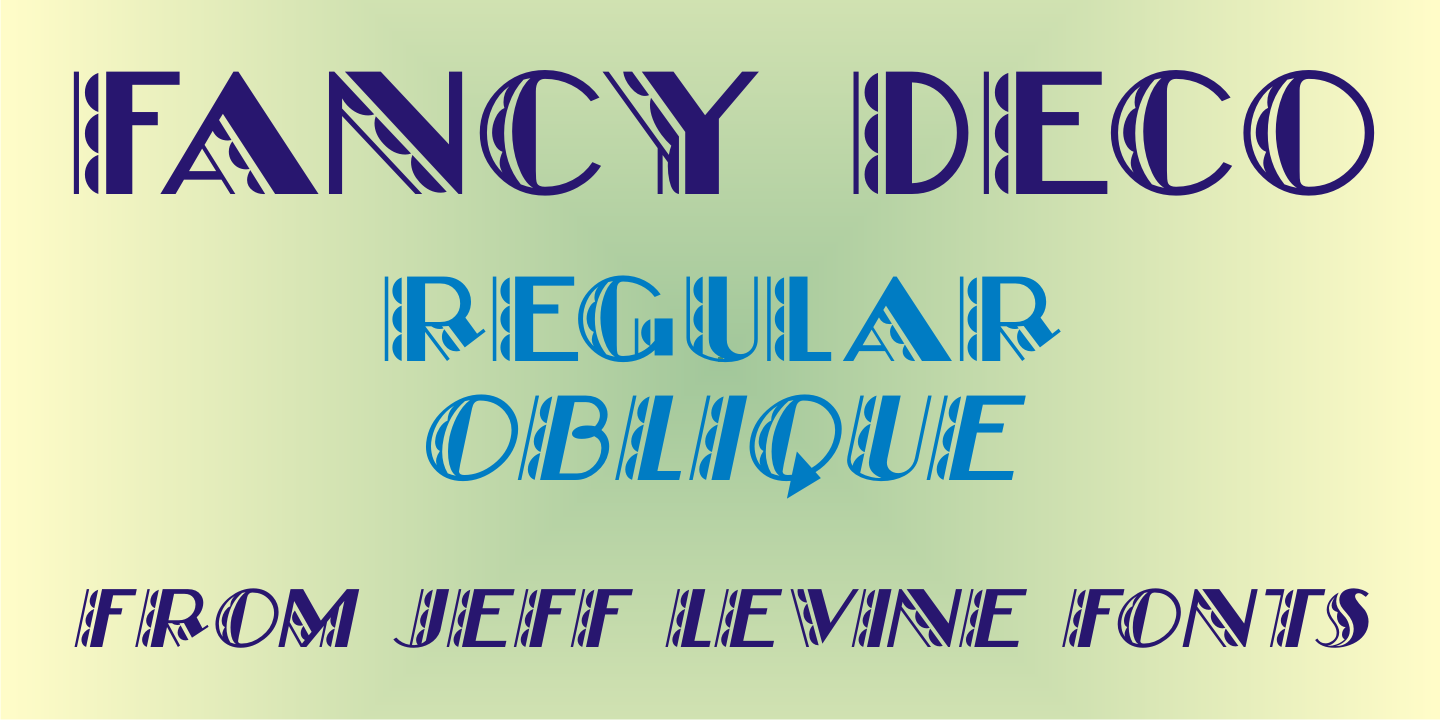
Designed by Jeff Levine, Fancy Deco JNL is a art deco font family. This typeface has two styles and was published by Jeff Levine Fonts.
This decorative, scalloped thick-and-thin Art Deco type design is one of the many inspirations found within the pages of the 1934 French lettering book “L’Art du Tracé Rationnel de la Lettre”.